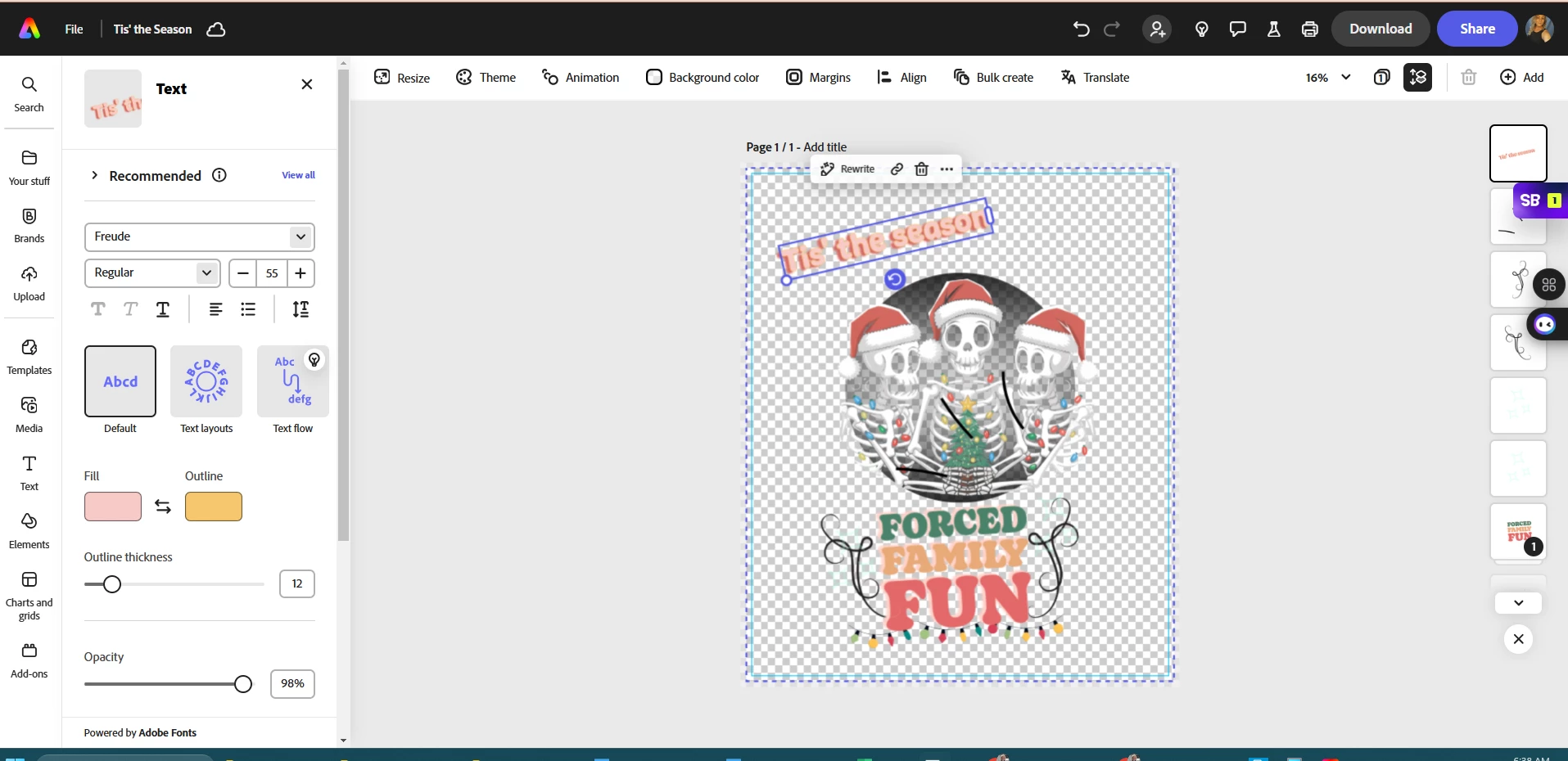
Newbie: Font editing
Hi there! I'm using Adobe Express and I cannot for the life of me figure out how to manipulate my font. For example, I'm currently working on a design for a Christmas shirt and I wanted to do a similar layout of font that is popular on Etsy - the "retro/hippy/wavy" effect. When I click on my text box, the only options I see are the font, (bold, italic, etc.), and then I see default, text layout, text flow - under the text layouts, my only opions are dynamic, circle, arch, and bow - which none of them I have been able to wiggle it around how I want. I don't understand the text flow option either. I asked my AI support helper and it says there should be and effect option on the (right) panel. I'm not seeing this...